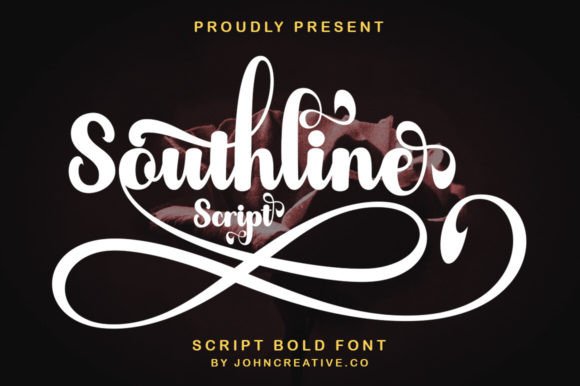
Step into the world of Southline Script, a font that dances and flows like a graceful melody. Its elegant touch and timeless style will captivate your designs, adding a touch of sophistication and charm that will leave your audience breathless. Lose yourself in the beauty of this flowing handwritten font, and let your creativity soar.
With Southline Script, you hold the key to unlocking spectacular designs that will turn heads and leave a lasting impression. Its incredibly distinct style sets it apart from the ordinary, making it the perfect choice for those seeking to make a statement. Whether you're crafting logos, posters, invitations, or any other creative project, Southline Script will elevate your designs to new heights.
But what truly sets Southline Script apart is its versatility. It's like a chameleon, effortlessly adapting to any project you throw its way. Its elegant curves and flowing lines lend themselves perfectly to wedding invitations, adding a touch of romance and charm to your special day. Unleash your creativity and use Southline Script to craft stunning social media posts that will captivate your audience and leave them scrolling for more.
And let's not forget about branding. Southline Script is the secret weapon you need to create a brand identity that exudes sophistication and professionalism. Its timeless style will ensure that your brand stands out from the crowd, leaving a lasting impression on your customers. From business cards to brochures, Southline Script will elevate your brand to new levels of success.
So, are you ready to embark on a creative journey with Southline Script? Let your imagination run wild and create designs that will inspire and captivate. Its elegant touch and timeless style will transform your projects into masterpieces, leaving your audience spellbound. Take the plunge and download Southline Script today, and unlock a world of creative possibilities.